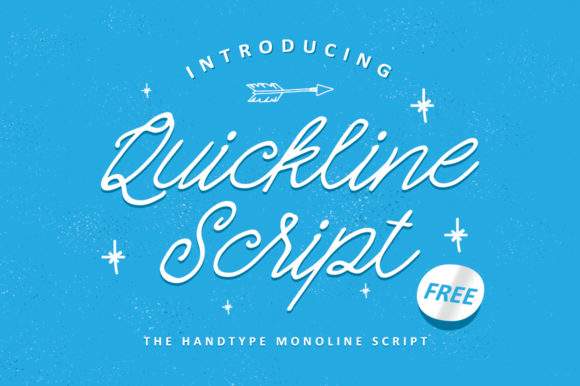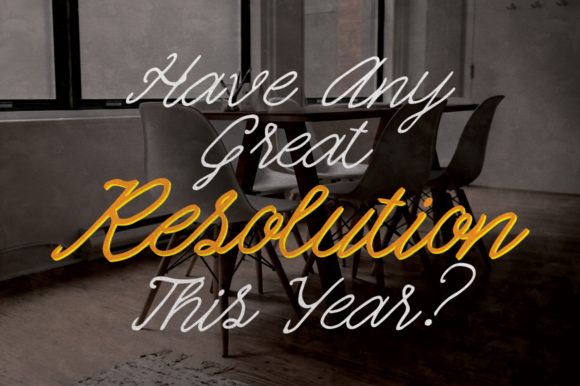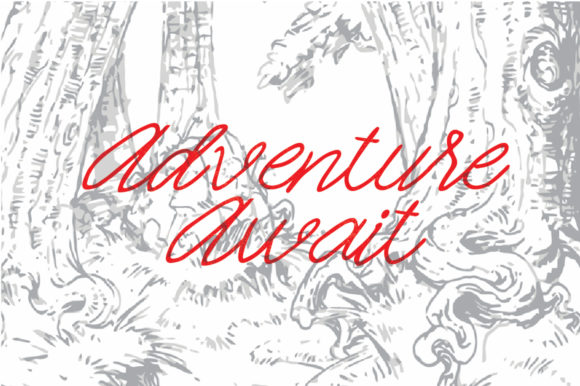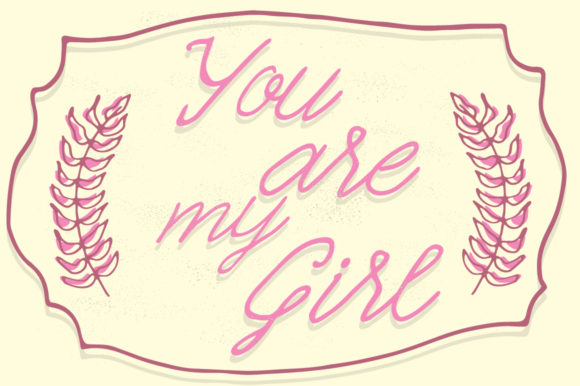
About Quickline Font
Quickline is a delicate, elegant and flowing handwritten font. It has beautiful and well balanced characters and as a result, it matches a wide pool of designs.